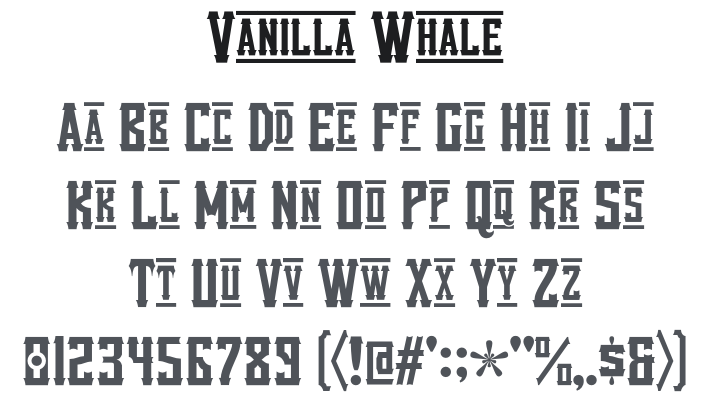
Vanilla Whale Font
About Vanilla Whale
Vanilla Whale is a narrow slab-serif display typeface with rustic, rugged curves and western-style serifs — its unusual small-caps design gives lowercase letters a distinctive, compact elegance while capitals command the headline with gruff confidence. Using a capital at the end of a word creates an eye-catching decorative effect. Perfect for whiskey labels, saloon signage, country music branding, vintage posters, and any design needing western elegance with frontier swagger.